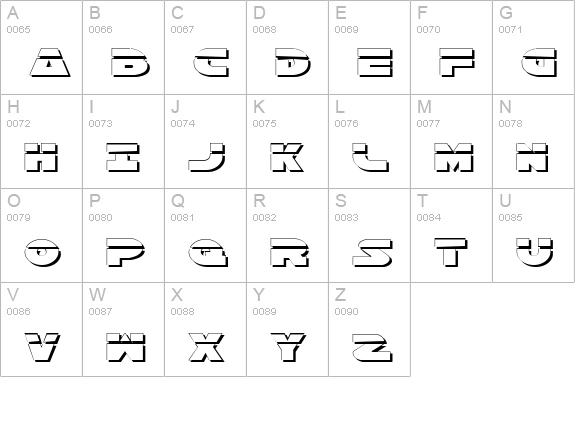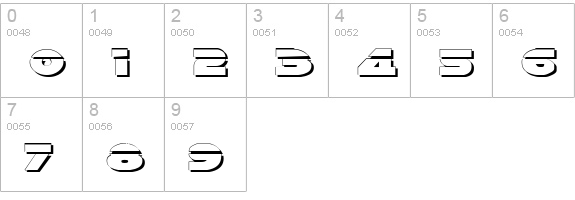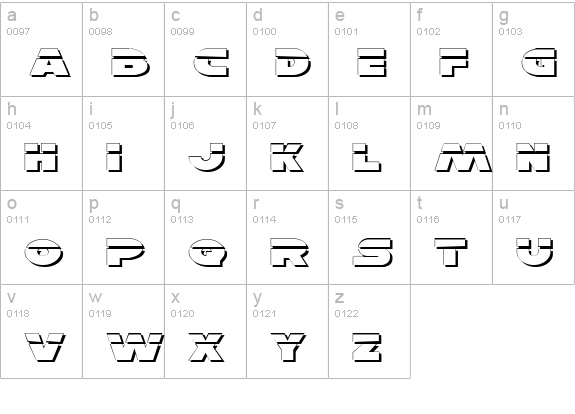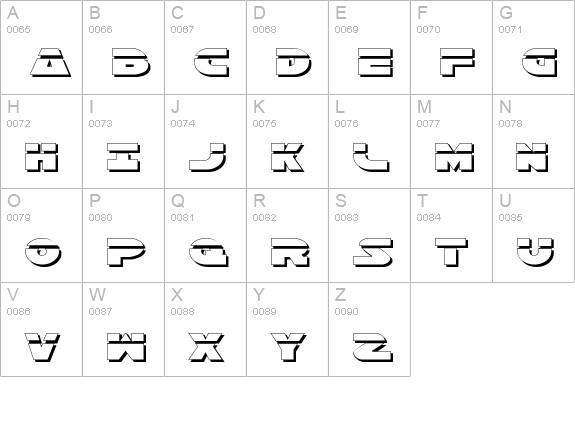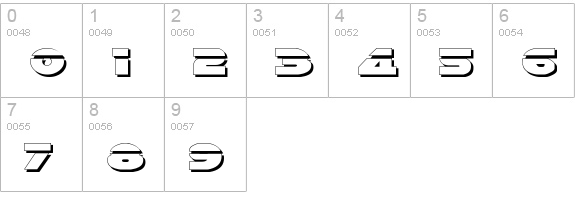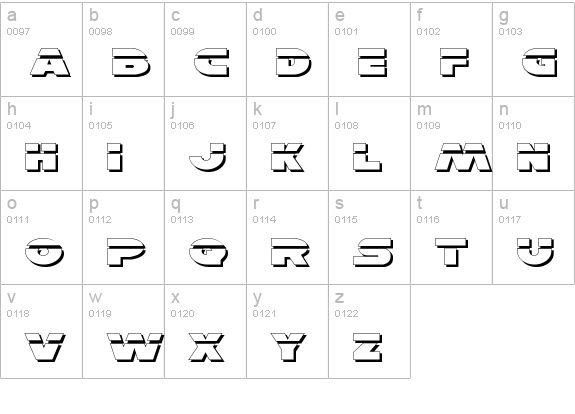
Han Solo Exp ShadowLaser Font Details
Introducing the Han Solo Exp ShadowLaser font, a dazzling typeface that embodies the adventurous spirit and swashbuckling charisma of the legendary Han Solo himself. This font is perfect for capturing the essence of rebellion, mischief, and unyielding determination in your designs. With its bold and dynamic letterforms, Han Solo Exp ShadowLaser font commands attention and adds a touch of excitement to any project. Whether you're creating eye-catching headlines, designing movie posters, or crafting sci-fi themed merchandise, this font will ensure your work stands out from the crowd. What makes Han Solo Exp ShadowLaser font even more remarkable is that it is freely available to download at FontsMarket.com. Yes, you read that right – you can now access this incredible font without having to spend a dime! FontsMarket.com is renowned for its vast collection of high-quality fonts, and Han Solo Exp ShadowLaser font is no exception. It's time to unleash your creativity without breaking the bank. Don't miss out on the chance to add a touch of intergalactic charm and adventure to your designs. Download Han Solo Exp ShadowLaser font today and embark on a journey of unlimited creativity. Remember, the force is strong with this font, and it's waiting for you to harness its power. Get ready to captivate your audience and make a lasting impression with Han Solo Exp ShadowLaser font – the free font that's out of this world.